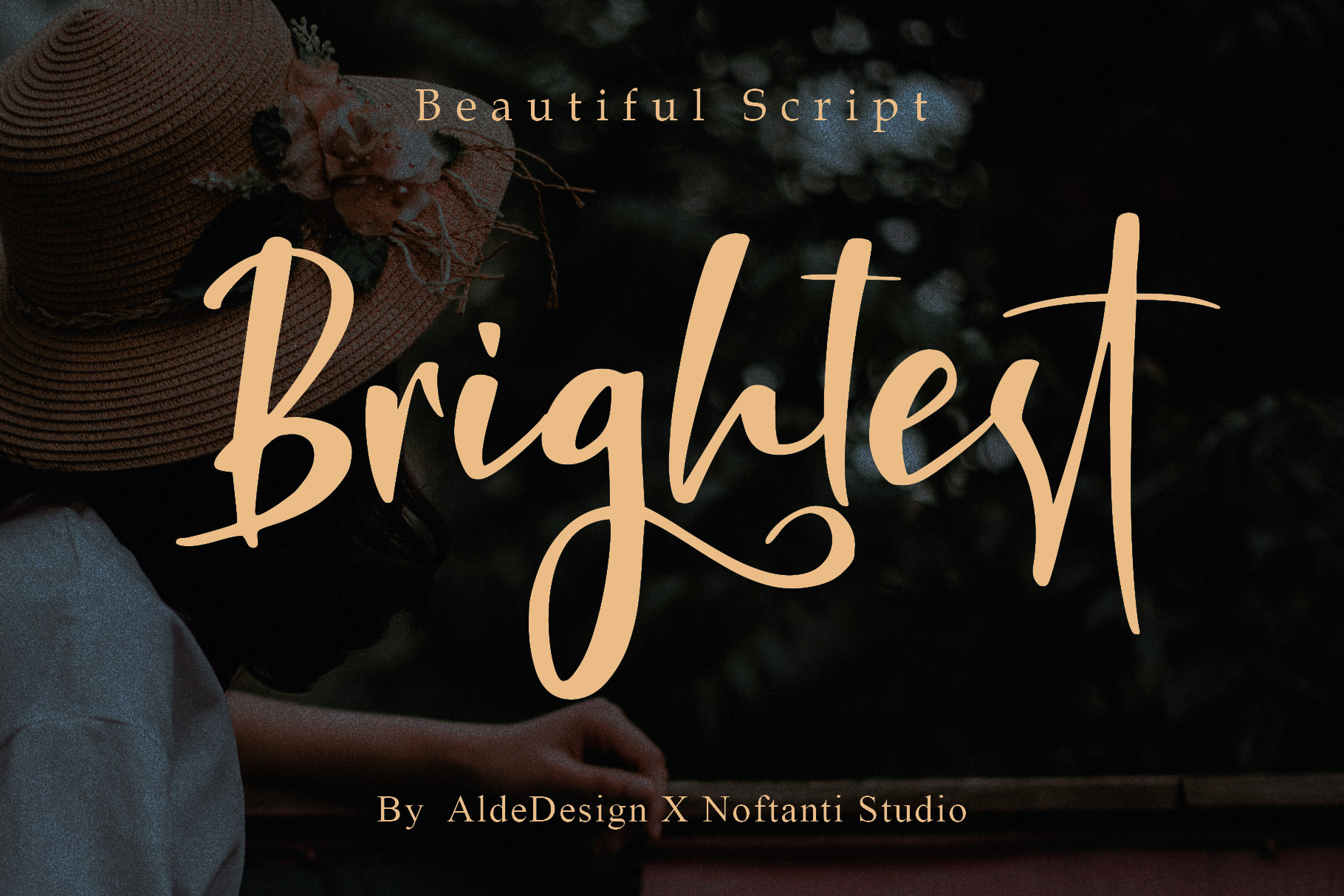
Brightest Script Elegant Script Font is a stylish script font that features a varying baseline, smooth line, modern, and with a depth love. For those of you who need a touch of love and modernity for your designs or branding, it can be used for various purposes such as headings, wedding, invitation, signature, logos, branding, t-shirt, letterhead, signage, labels, news, posters, badges, etc.
We design this font with OpenType features to give an artistic touch to it. This font is also applicable for numbers, punctuation, and other languages. It is also a multifunction font where you can use for a business logo, branding, wedding invitation, and anything you want.